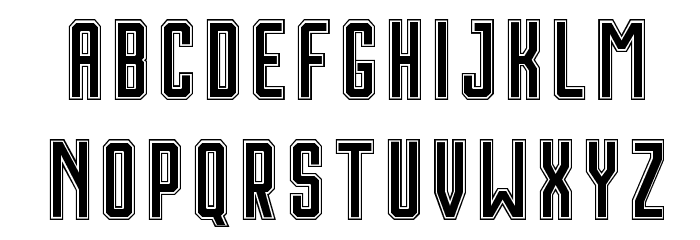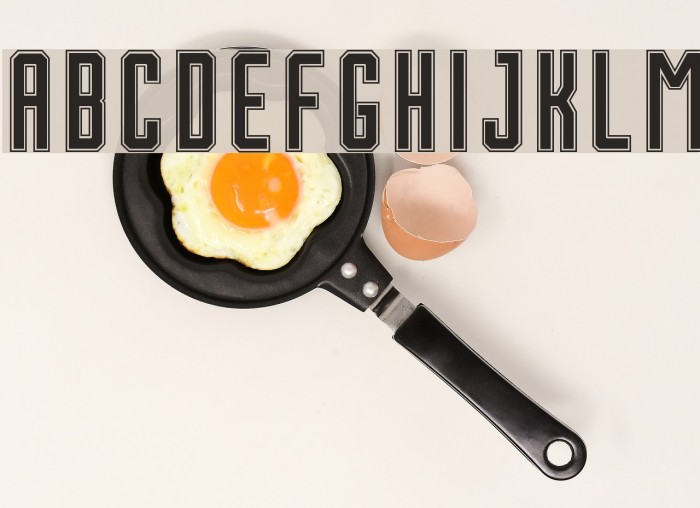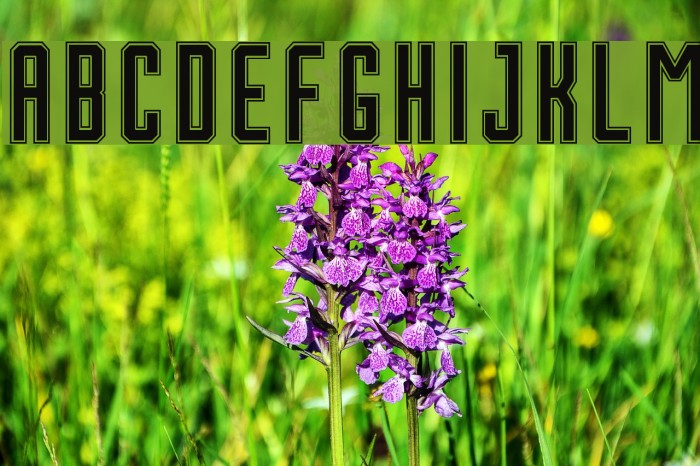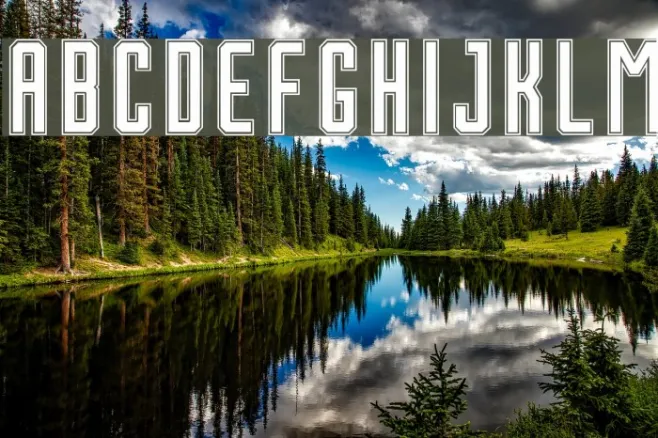
Houston Double Font
This font features a bold and striking design, characterized by its double-line structure that creates a sense of depth and dimension. The uppercase letters are tall and narrow, with sharp angles and clean lines that give it a modern and industrial feel. The consistent width of the strokes and the geometric precision of each character contribute to its strong visual impact. The font's unique style makes it ideal for attention-grabbing headlines and titles, where a bold statement is needed. Its structured appearance is both contemporary and versatile, suitable for a variety of design projects that require a touch of sophistication and edge.
A bold, double-line font with a modern, industrial aesthetic.
- Proposed Projects: Ideal for branding, posters, signage, and editorial design where a strong visual presence is required.